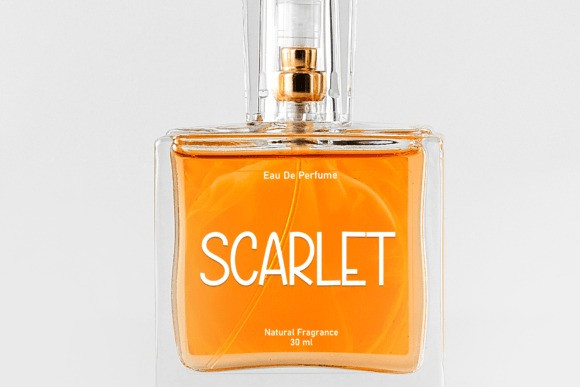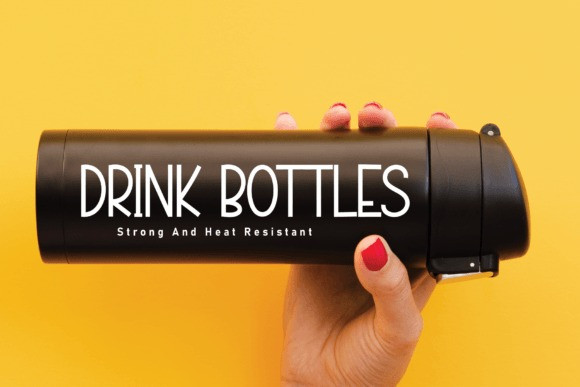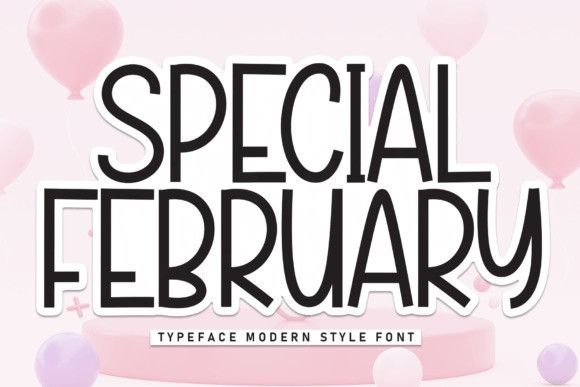
Special February Font
Special February Font is a sweet and friendly sans serif font. Its natural and unique style makes it incredibly fitting to a large pool of designs. The only limit is your imagination!